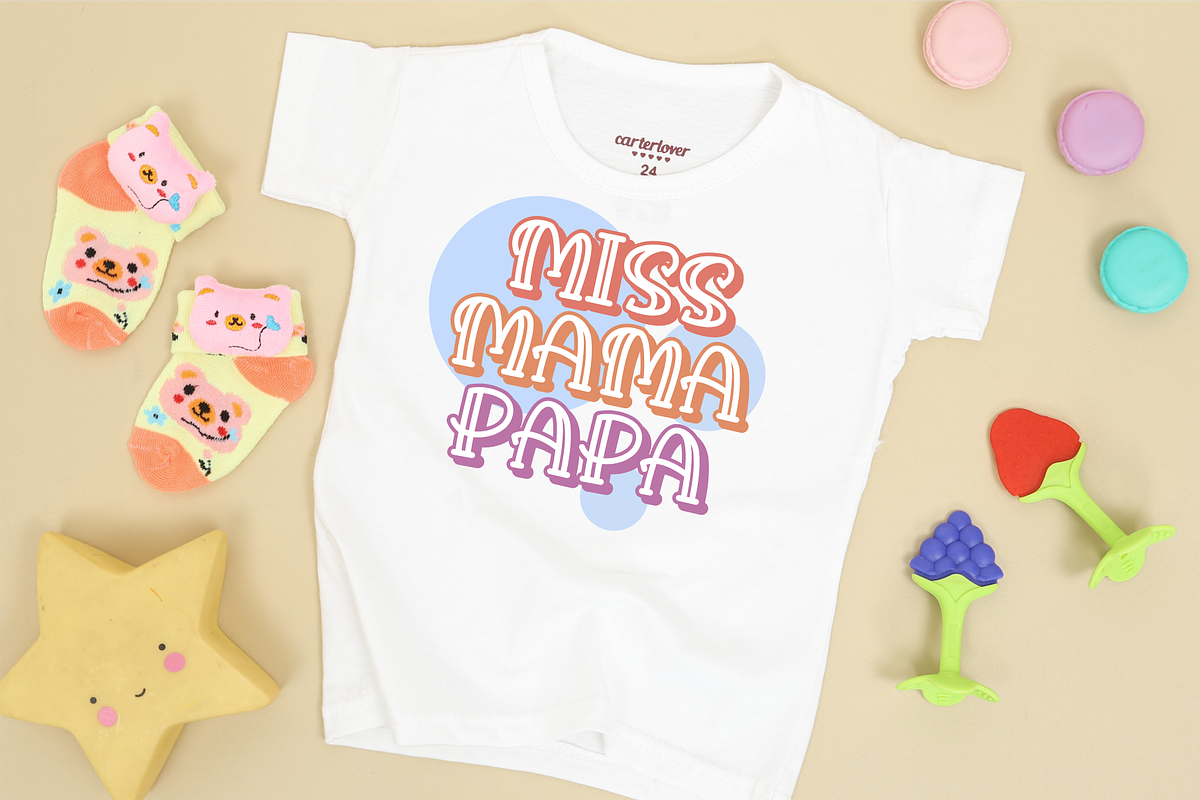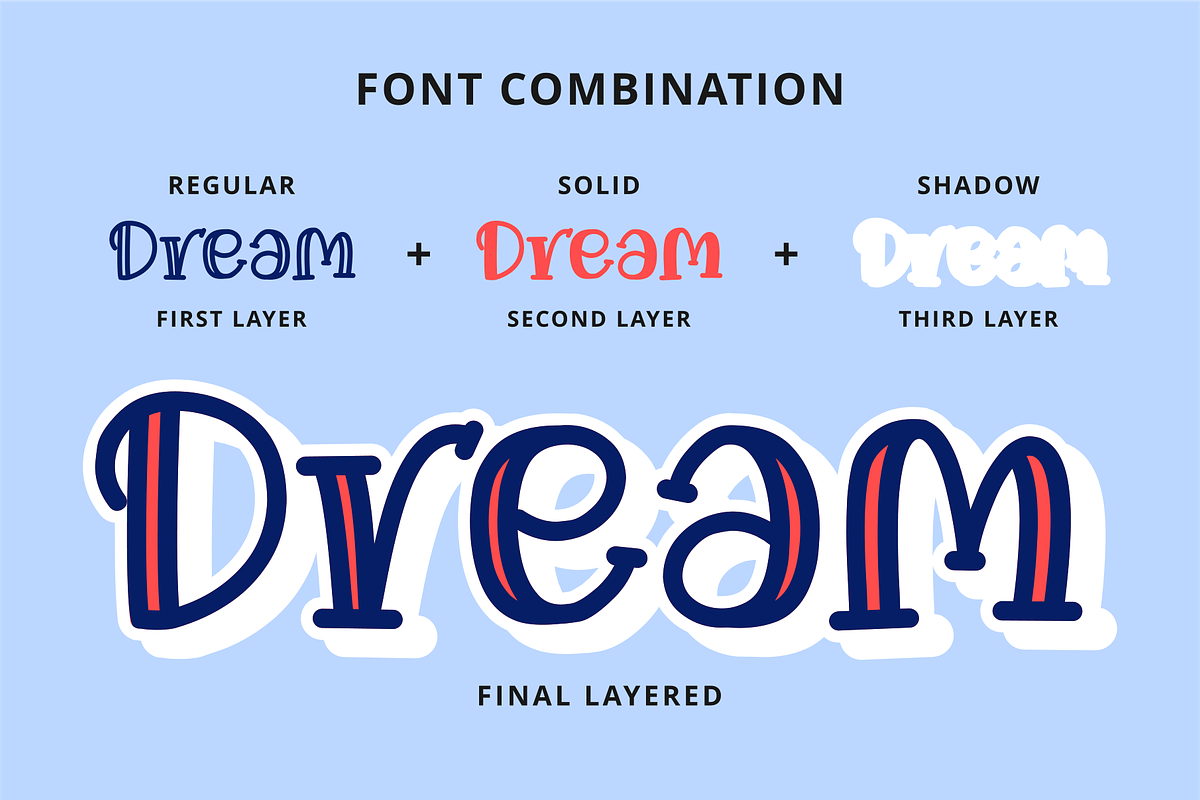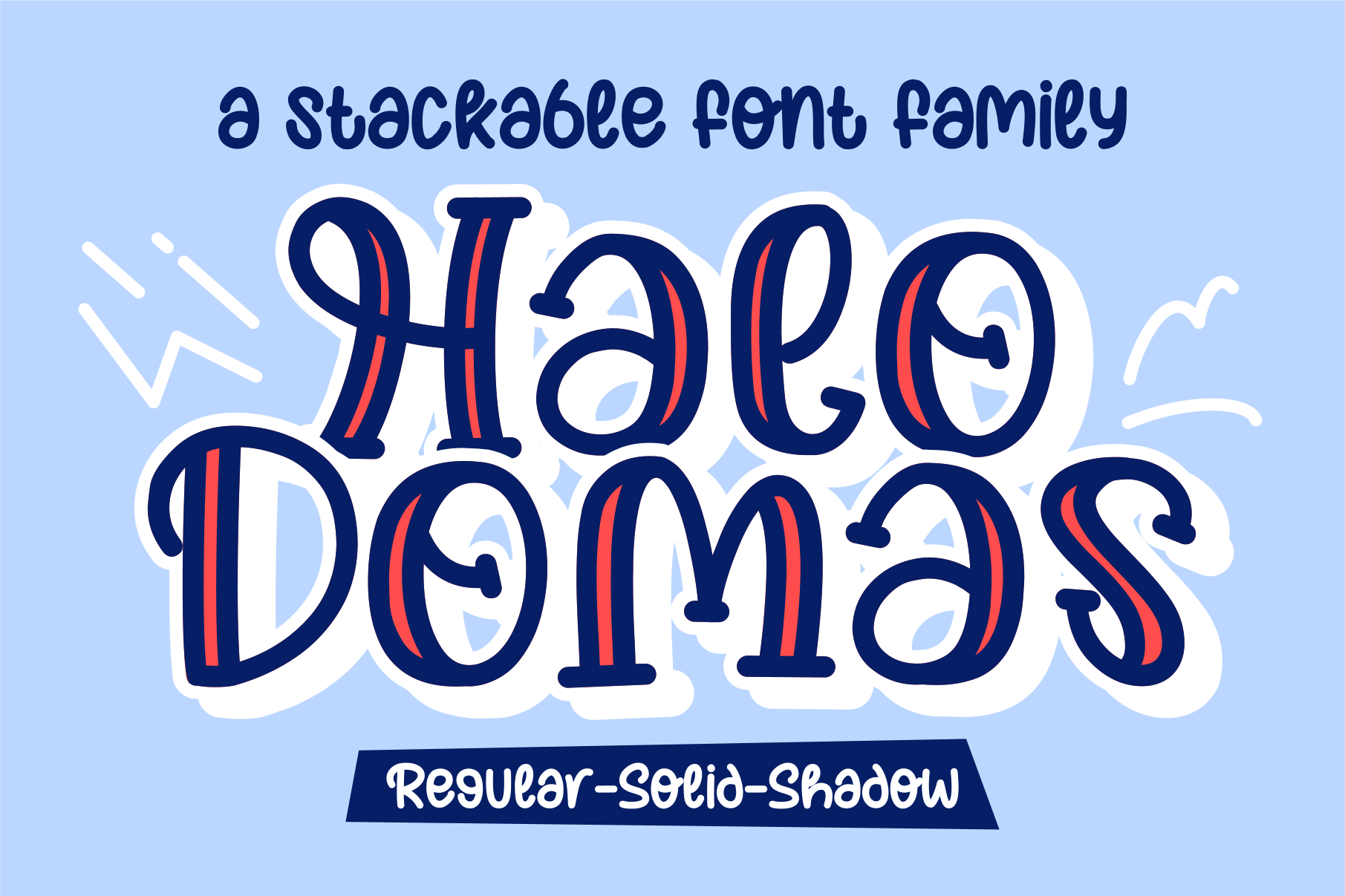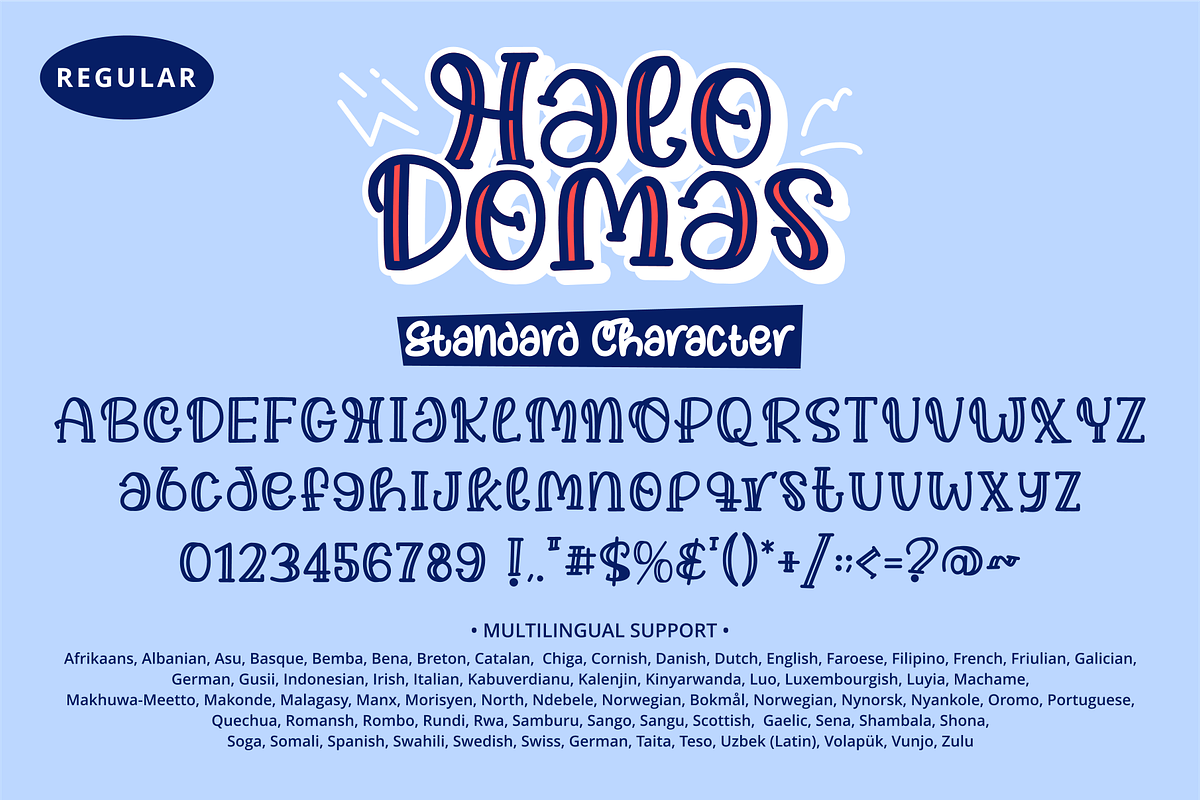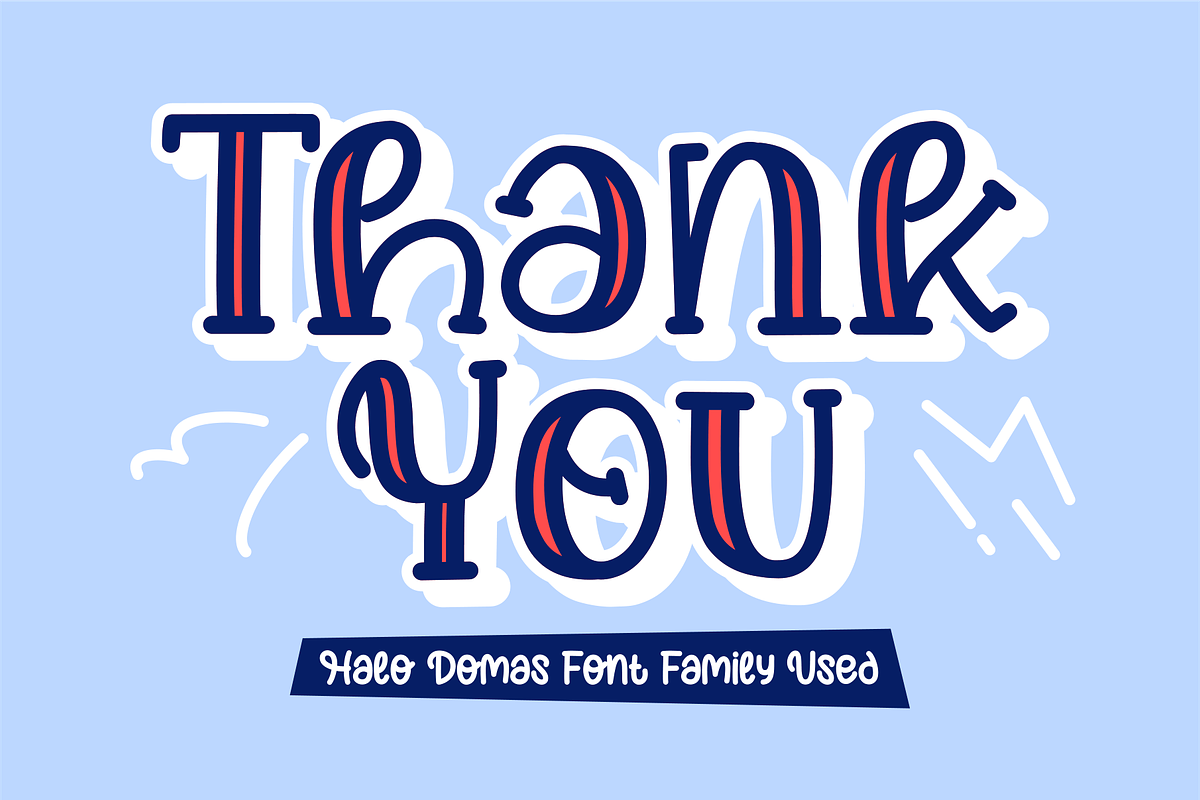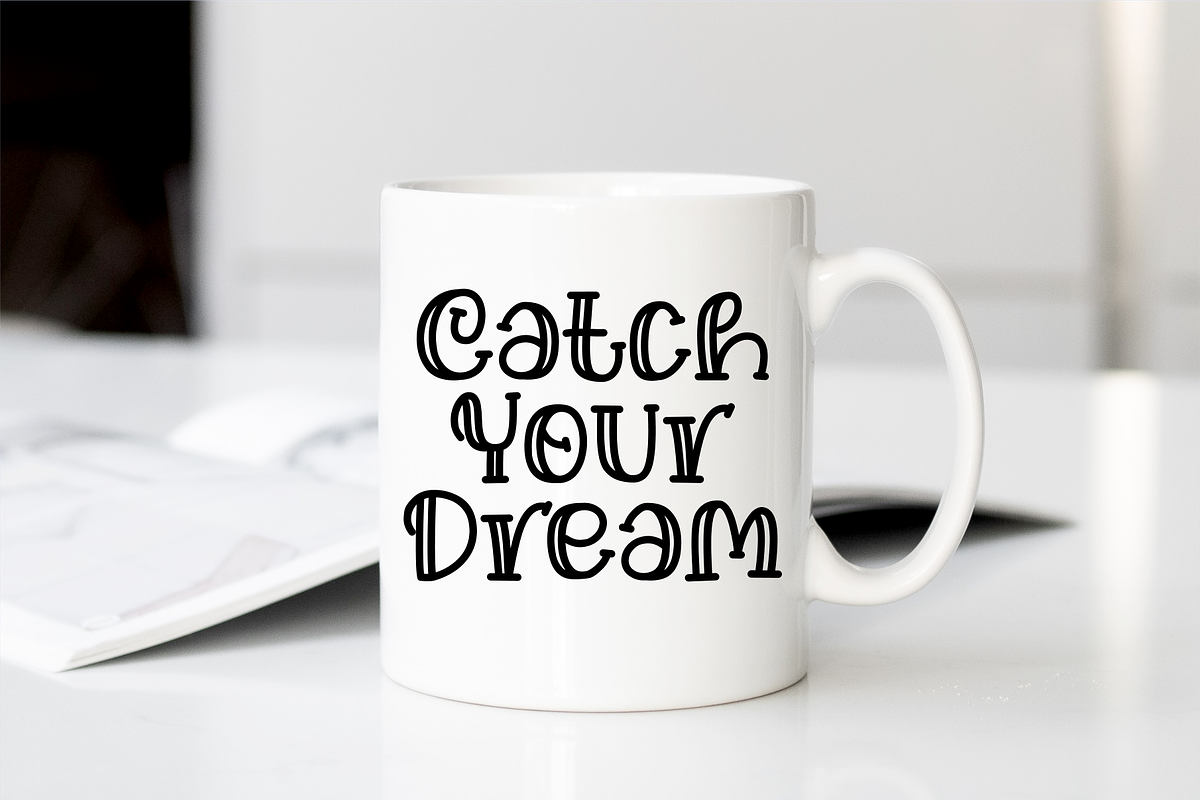
Halo Domas Font
Halo Domas is a unique and friendly display font perfect for any creative idea! Use fun and cute font on back-to-school designs, storybooks, magazines, mugs, clothes, invitations, and more.